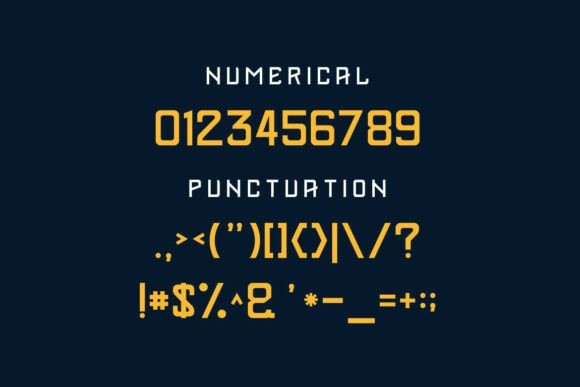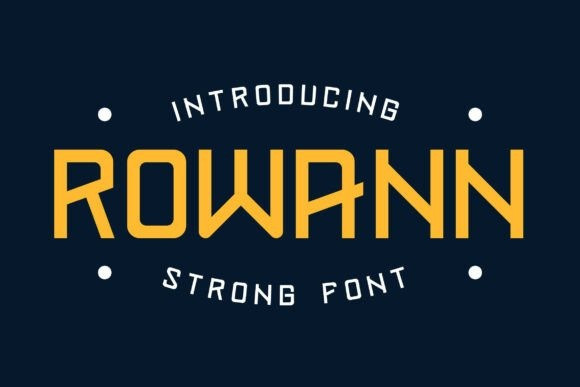
Rowann Font
Rowann Font is a clean and modern sans serif font that balances simplicity with subtle elegance. Its soft geometry, smooth curves, and spacious rhythm create a calm yet professional look — perfect for branding, editorial design, social media, packaging, and websites that value clarity with a touch of style.